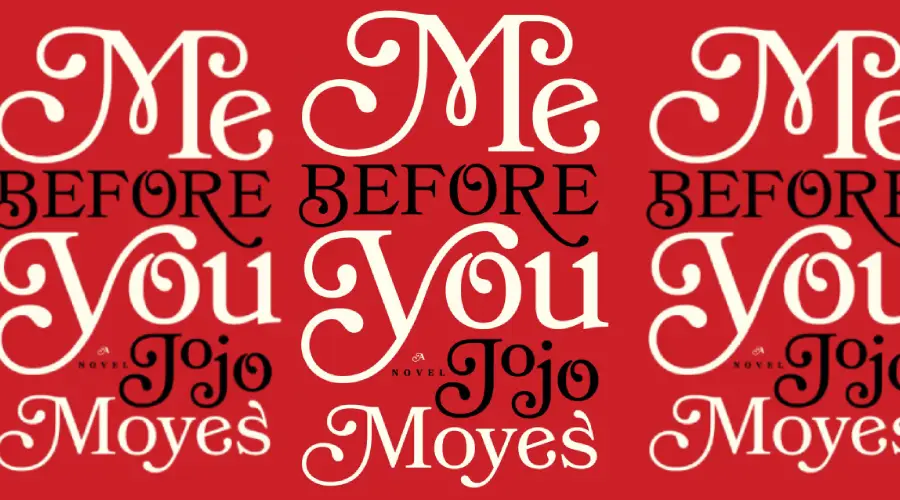
The Me Before You Font is associated with the Me Before You novel by Jojo Moyes, published in 2012. The font used for the book’s title is Bookmania Regular by Mark Simonson, which closely resembles the lettering seen on the cover. This elegant serif typeface has a classic, sophisticated feel, making it a great choice for branding, editorial design, and book covers.
Similar Fonts to Me Before You Font
Bookmania Regular by Mark Simonson This is the most similar font used in the logo and branding materials.